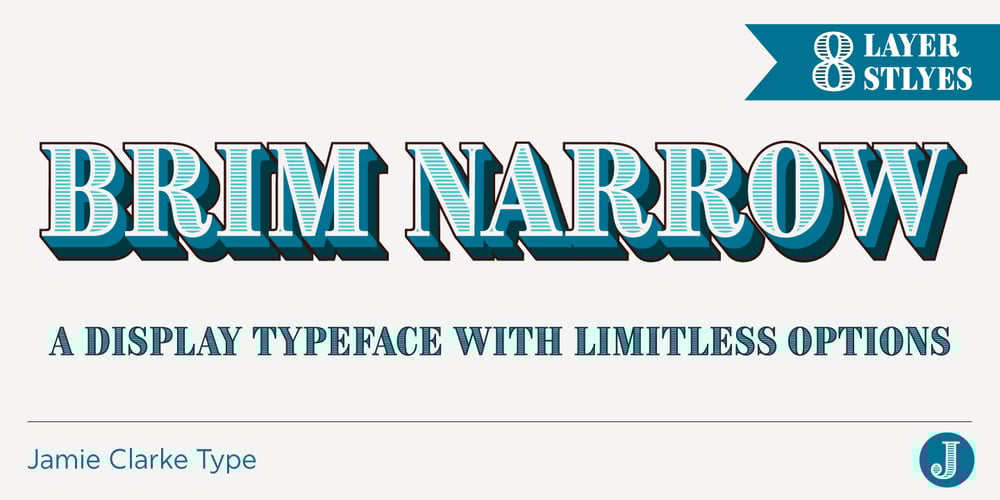
Brim Narrow Font Family was designed by Jamie Clarke and published by Jamie Clarke Type. Brim Narrow contains 8 styles and family package options. Brim is inspired by antique woodtype and chromatic type from the 1800s. Its various styles stack together creating a variety of decorative combinations. Each style can be assigned its own colour, resulting in a rich assortment of eye-catching combinations. The font began as a handful of letters created for a logotype. It became clear that it would make an excellent display typeface, so it was expanded to include all uppercase letters, numbers, European accents and more. Warm and tactile, Brim produces punchy headlines and decorative titles. Perfect for posters, packaging and logotypes. The name Brim accurately describes the expanded outer edge designed to produce its distinctive outlines. This overlapping structure couldn’t function correctly in wood or metal type; however for digital typography this system produces a more efficient solution for colour type, both in design and smaller file size, important for web typography. Many thanks to Dave Foster, Toshi Omagari, & Terrance Weinzierl, who generously gave their time to guide the design of this typeface. For a flattened version, see Brim Combined